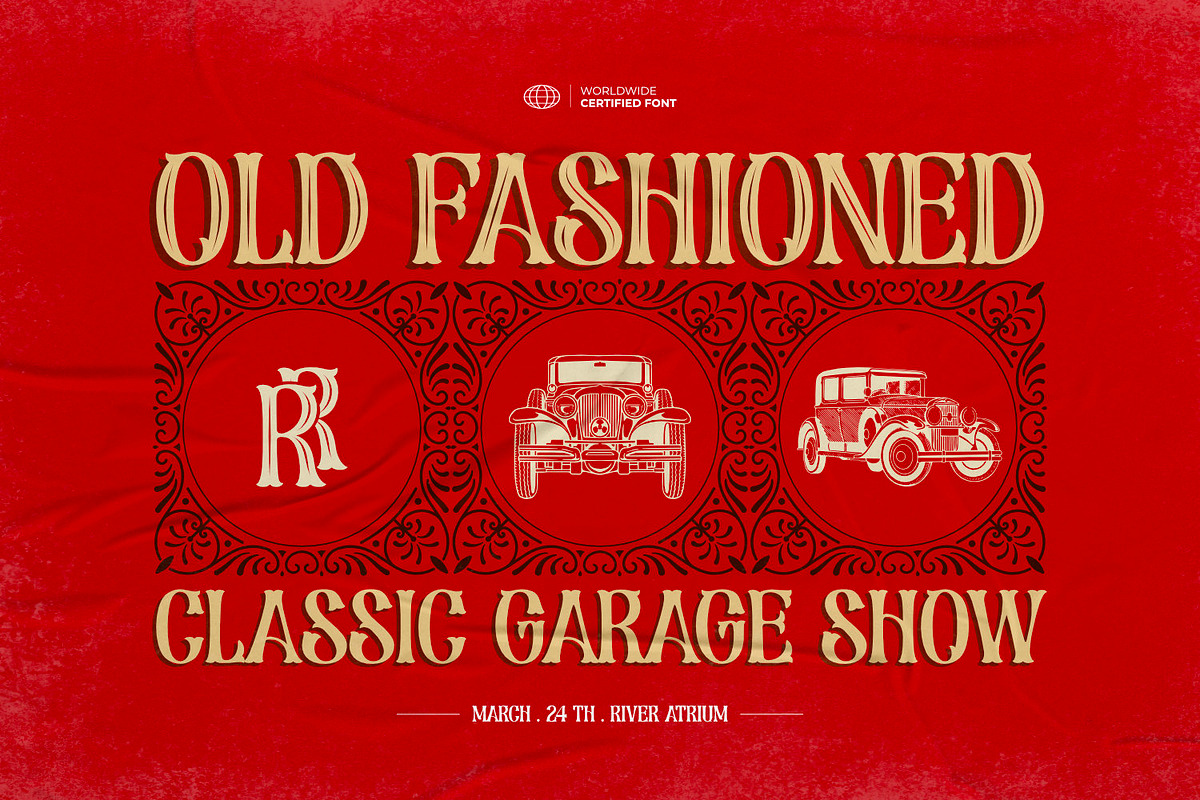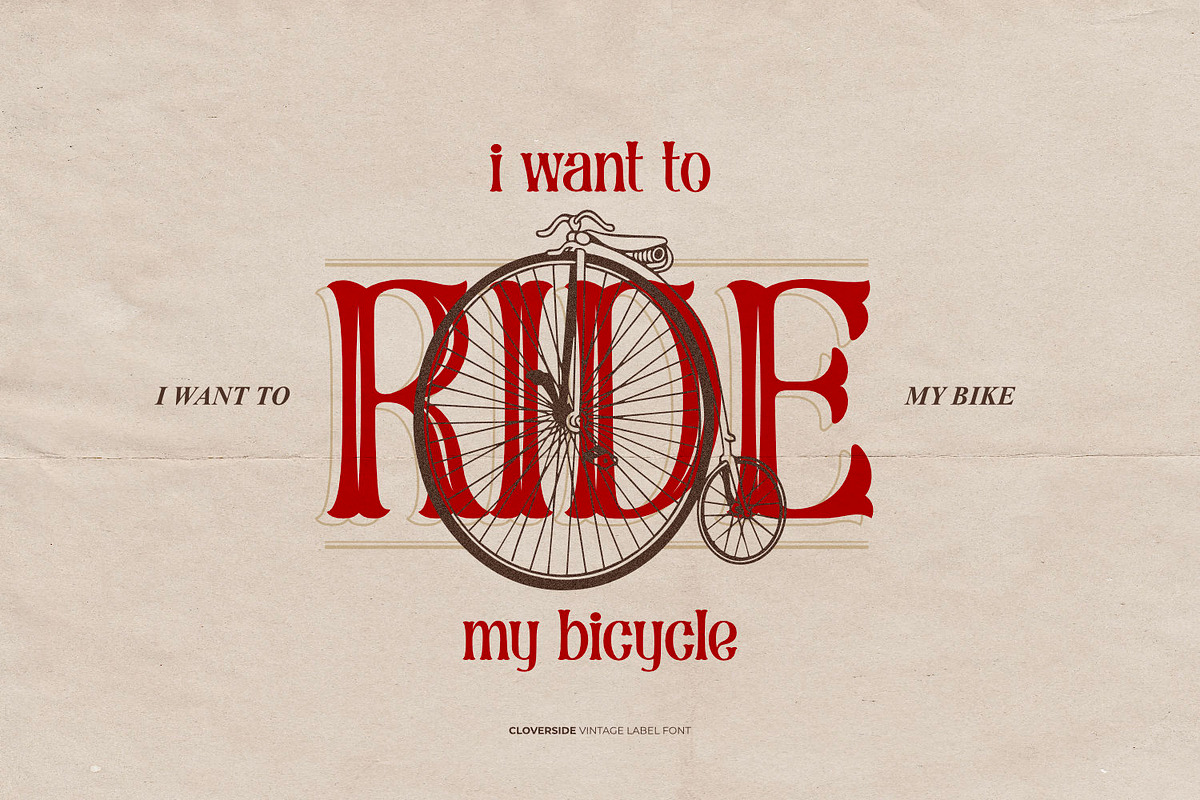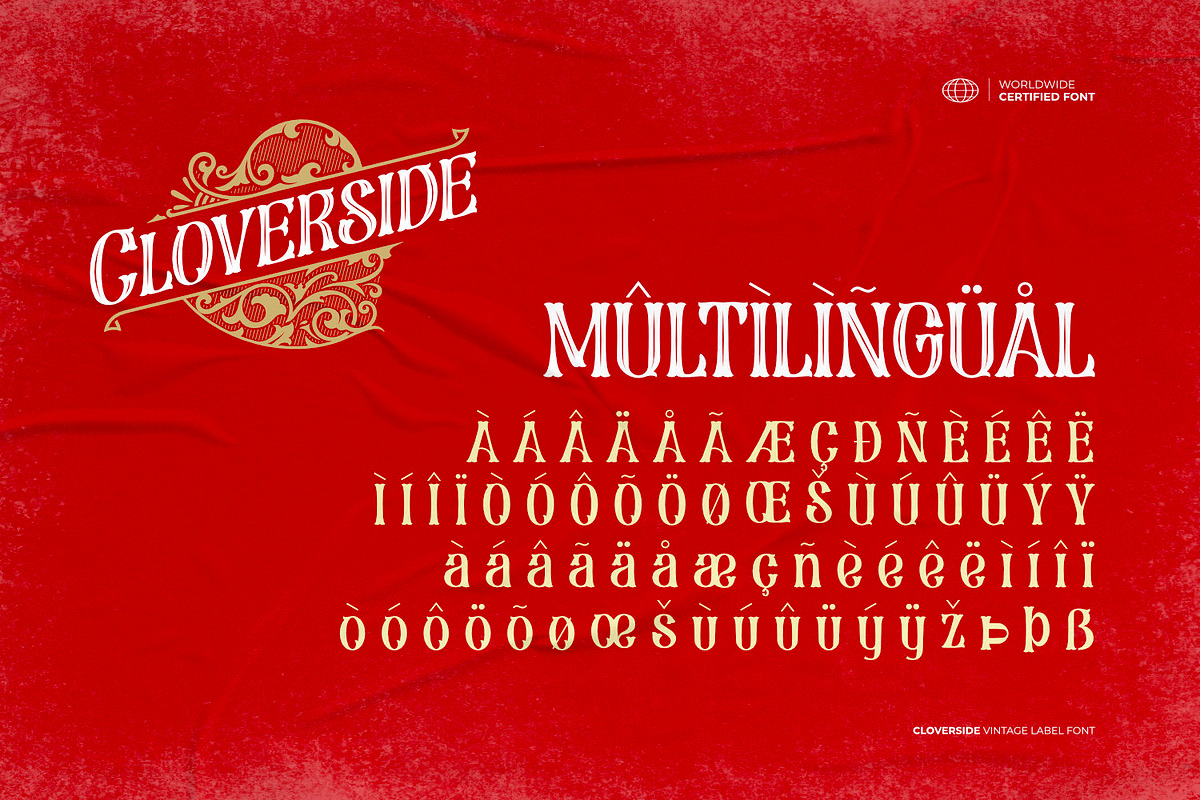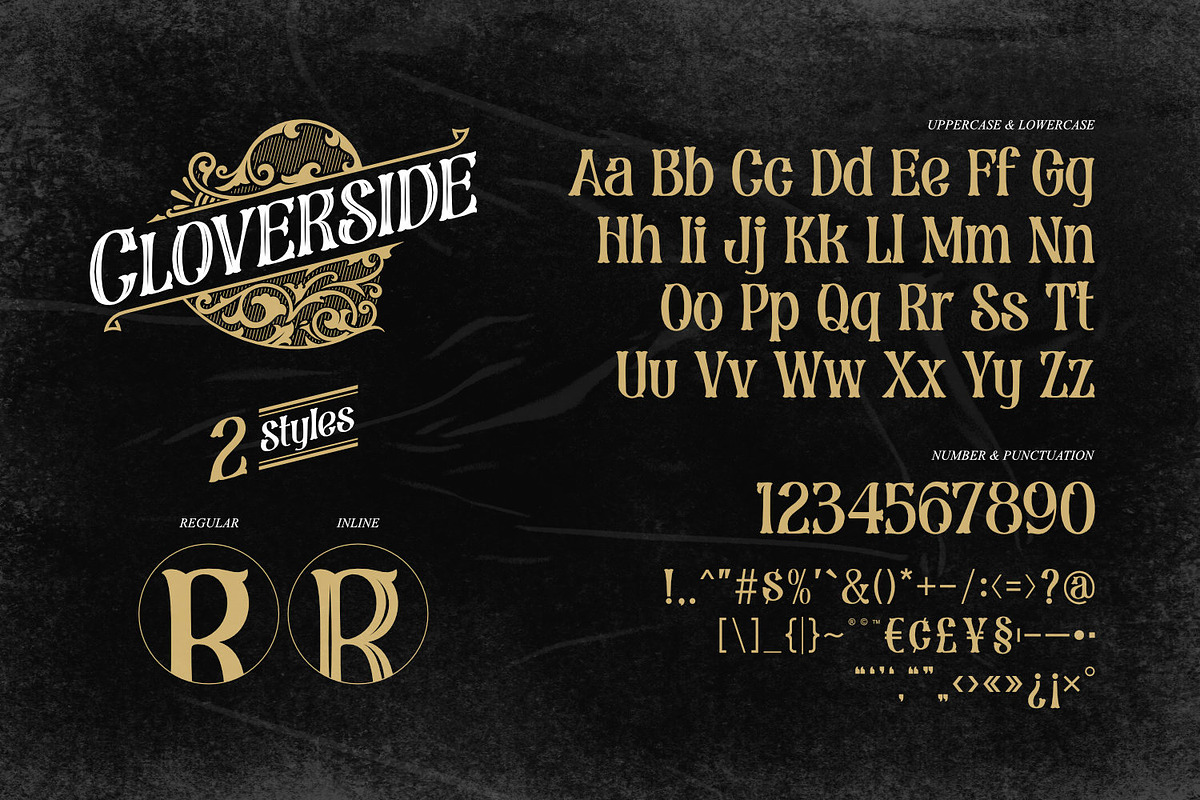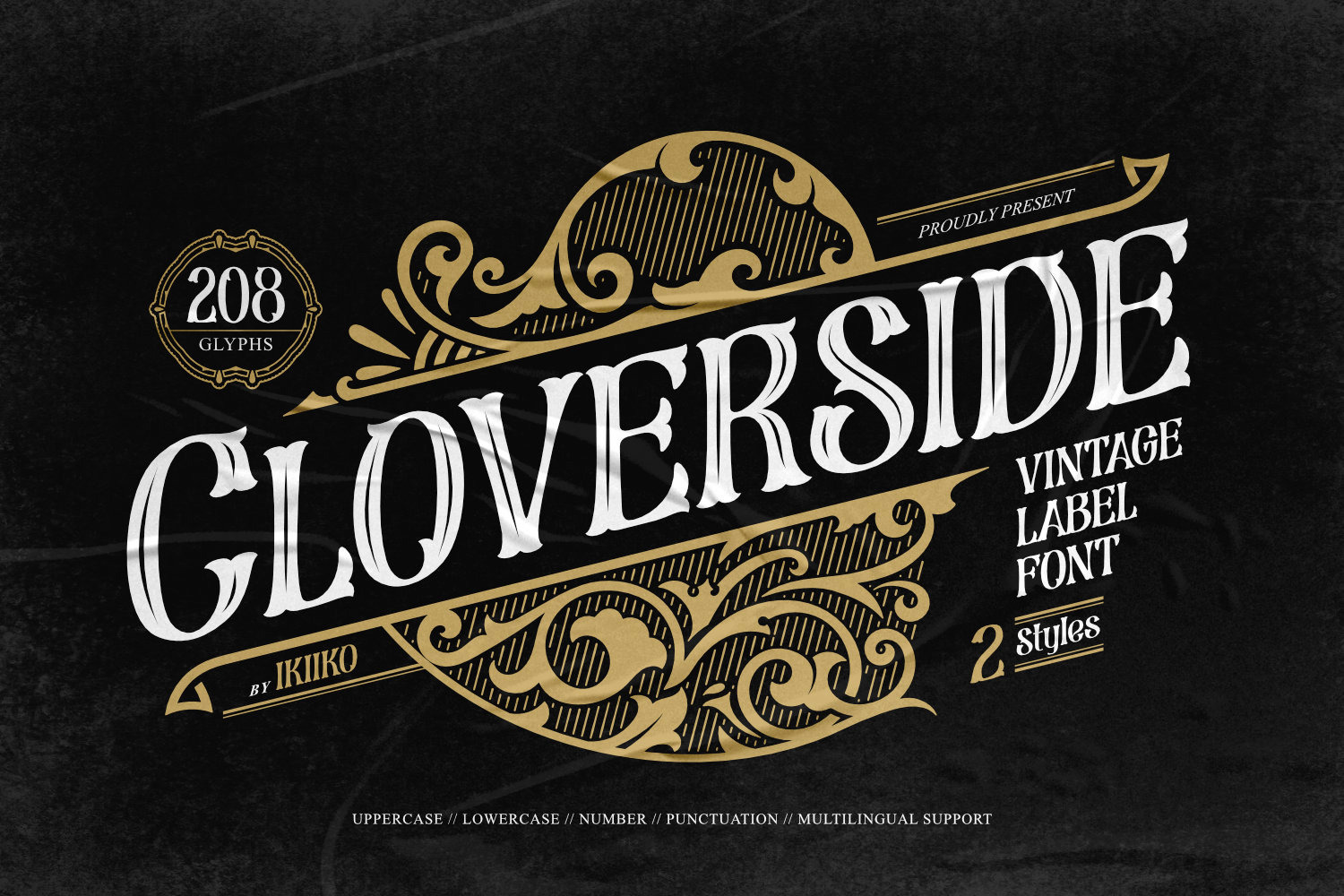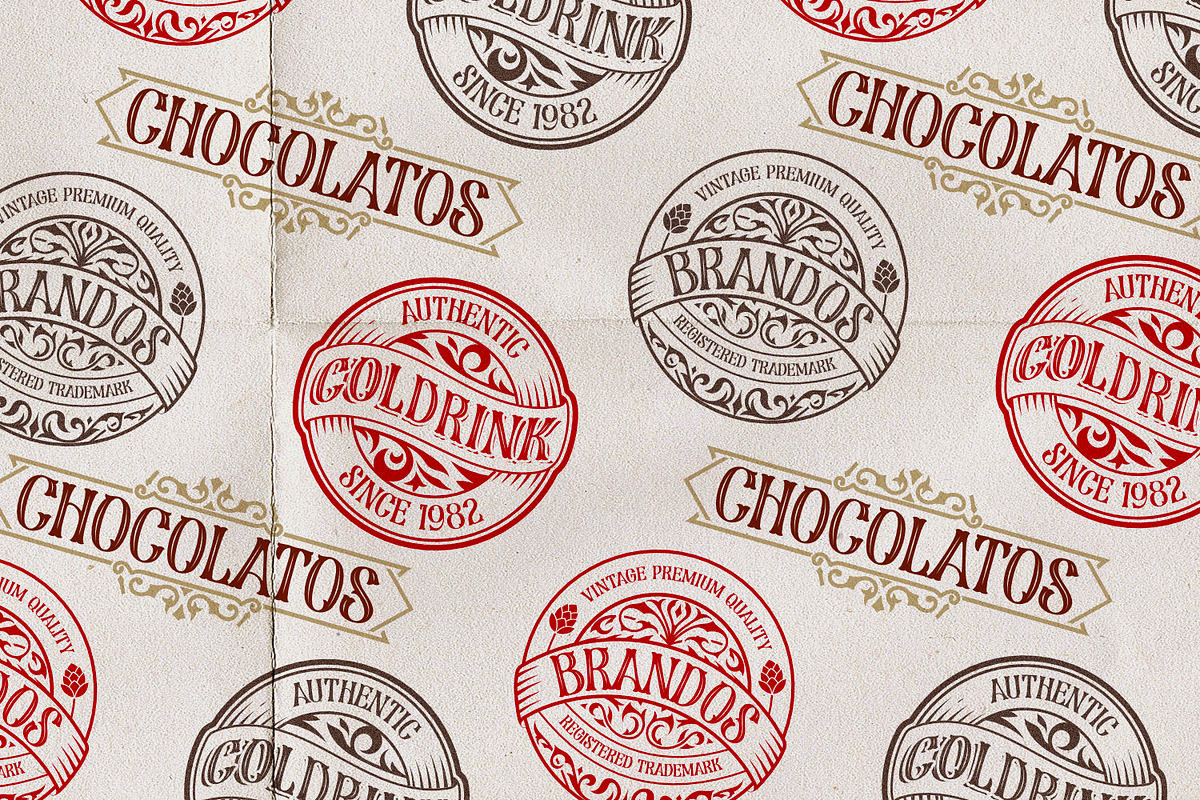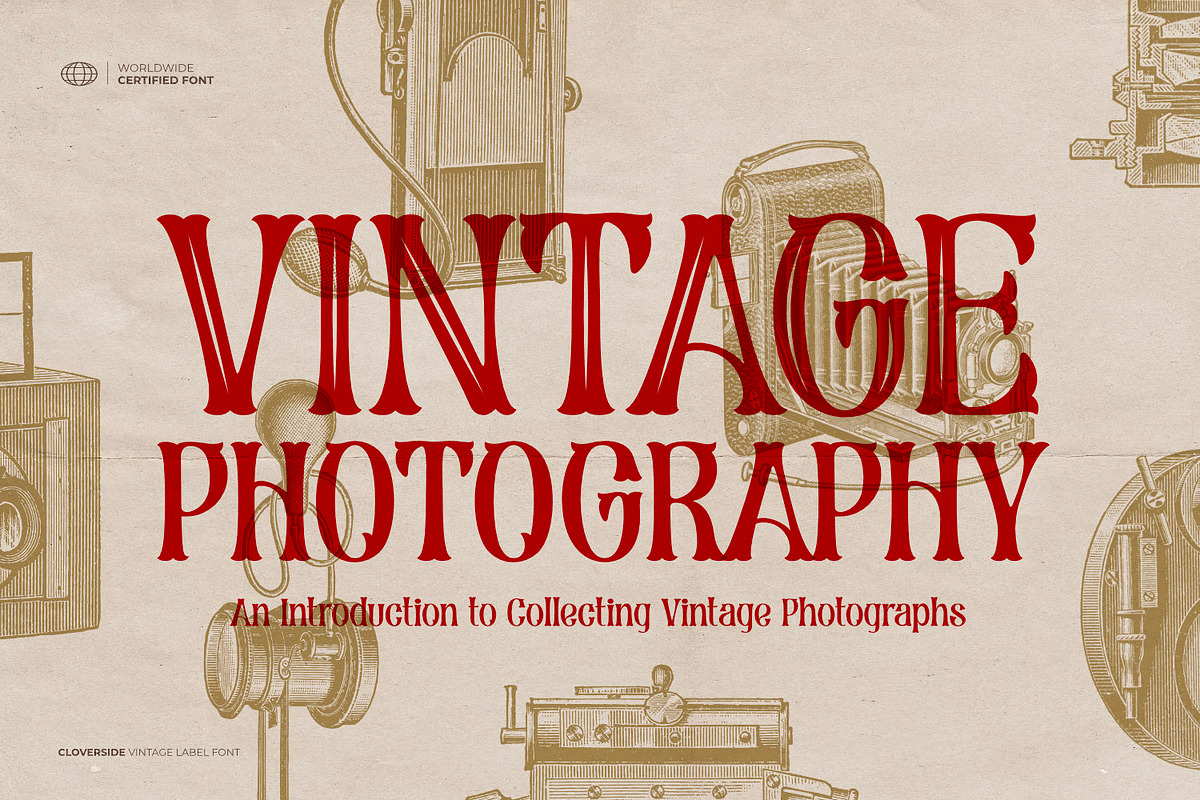
Cloverside - Vintage Label Font
Proudly present Cloverside - Vintage Label Font, created by ikiiko.
Where timeless elegance meets vintage charm in the world of typography. This exceptional font is a nod to the classic label style, meticulously crafted to add a touch of nostalgia to your designs. With its seamless blend of sophistication and retro flair, Cloverside captures the essence of a bygone era while maintaining a contemporary edge.
Give yourself to the charm of two unique looks: the striking and adaptable Regular font and the minutely detailed Inline font. Every word is a unique piece of art, painstakingly created to convey the feeling of fine craftsmanship found in old-fashioned labels.
This font is very suitable for making a vintage or retro stuff, magazine layout, book cover, food & beverages packaging, quotes, or simply as a stylish text overlay to any background image.
- 2 Styles : Regular & Inline